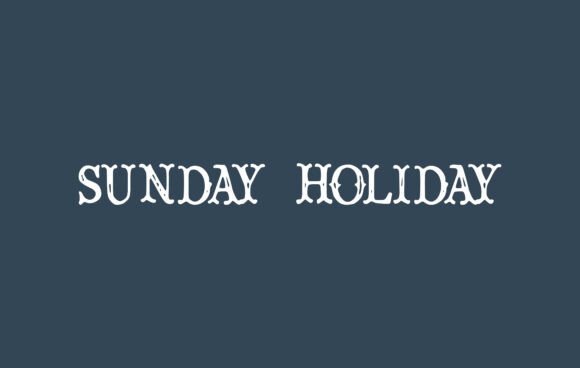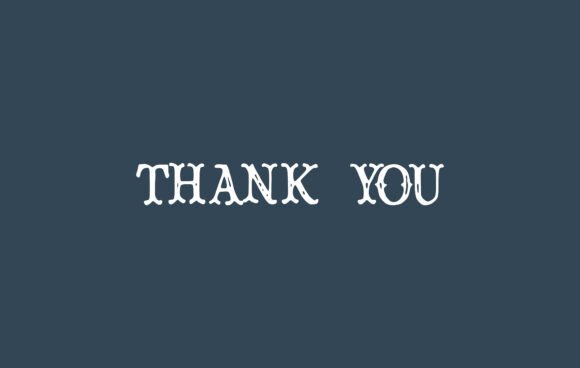
Introducing Creatajoy Font: The Perfect Blend of Romance and Legibility
Are you a designer or crafter looking for a font that can elevate your creative projects to new heights? Look no further than Creatajoy Font, an authentic and romantic font that’s expertly designed to capture your audience’s attention. With its unique blend of elegance and legibility, Creatajoy Font is the perfect choice for a wide range of design applications, from magazine headlines and social media graphics to wedding invitations and branding materials.
The Story Behind Creatajoy Font
Creatajoy Font is more than just a font – it’s a carefully crafted tool designed to help you bring your creative ideas to life. With a focus on romance and sophistication, this font is perfect for designers and crafters who want to add a touch of elegance to their work. Whether you’re creating a wedding invitation, a social media graphic, or a branding campaign, Creatajoy Font is the perfect choice.
Key Features of Creatajoy Font
- Legibility: Creatajoy Font is designed to be easy to read, making it perfect for both title and body text.
- Romantic Touch: With its elegant and sophisticated design, Creatajoy Font adds a touch of romance to any project.
- Versatility: Creatajoy Font is perfect for a wide range of design applications, from magazine headlines and social media graphics to wedding invitations and branding materials.
- Authenticity: Creatajoy Font is an authentic font that’s been expertly designed to stand out from the crowd.
Design Applications for Creatajoy Font
Creatajoy Font is a versatile font that can be used in a wide range of design applications. Here are just a few ideas to get you started:
- Magazine Headlines: Use Creatajoy Font to create eye-catching headlines that grab your readers’ attention.
- Social Media Graphics: Add a touch of elegance to your social media graphics with Creatajoy Font.
- Wedding Invitations: Make your wedding invitations truly special with Creatajoy Font.
- Branding Materials: Use Creatajoy Font to create a cohesive brand identity that stands out from the crowd.
- Cards and Stationery: Add a touch of romance to your cards and stationery with Creatajoy Font.
Why Choose Creatajoy Font?
With so many fonts to choose from, why should you choose Creatajoy Font? Here are just a few reasons:
- Unique Design: Creatajoy Font has a unique and elegant design that sets it apart from other fonts.
- High Legibility: Creatajoy Font is designed to be easy to read, making it perfect for both title and body text.
- Versatility: Creatajoy Font can be used in a wide range of design applications.
- Authenticity: Creatajoy Font is an authentic font that’s been expertly designed to stand out from the crowd.
Creatajoy Font is a versatile and elegant font that’s perfect for designers and crafters who want to add a touch of romance to their work. With its unique design, high legibility, and versatility, Creatajoy Font is the perfect choice for a wide range of design applications. Whether you’re creating a wedding invitation, a social media graphic, or a branding campaign, Creatajoy Font is the perfect choice. So why wait? Download Creatajoy Font today and take your creative projects to the next level!